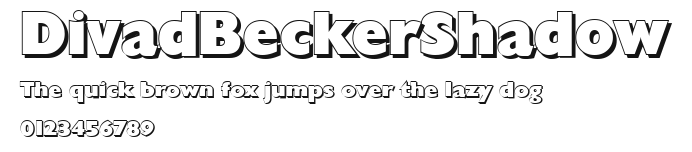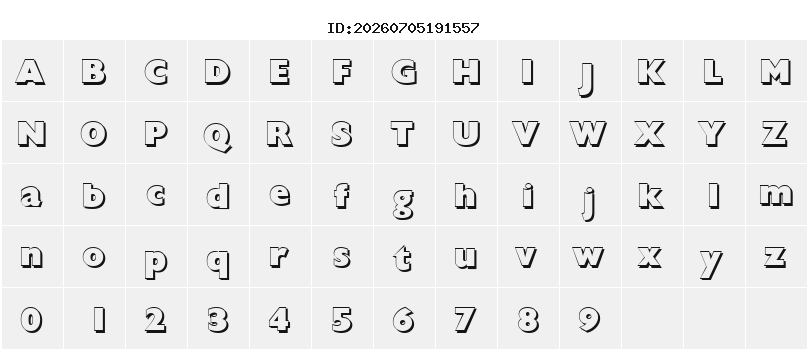
DivadBeckerShadow Preview
• Font Name: DivadBeckerShadow
• Font ID: Alts:DivadBeckerShadow-Bold
• Full Font Name: DivadBeckerShadow-Bold
• Version: 1.0 Wed May 03 18:53:12 2000
• PostScript Name: DivadBeckerShadow-Bold
• Character Count: 213
About DivadBeckerShadow.ttf
DivadBeckerShadow.ttf is a modern, elegant sans-serif font designed for ultimate readability and visual harmony. Perfect for branding, headlines, web design, and print materials.